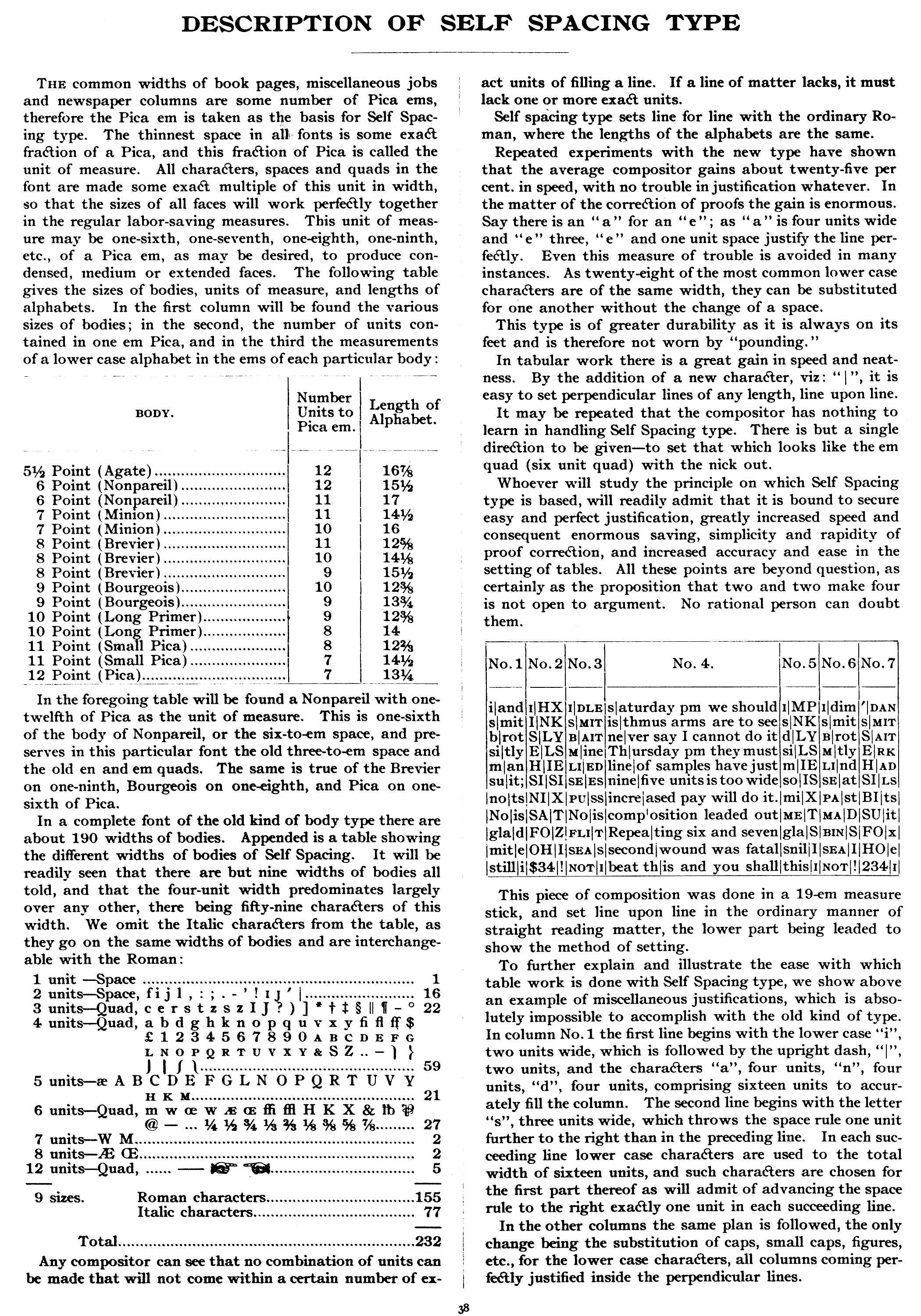
Do you mind if I insert (AND UNITIZING) and see if it meets with your approval. I am using uppercase to show it is not your words but mine. I am "not" rewriting your sentence, I am just asking if you agree with my insertion?
"But Tschichold had to adapt to both constraints -- duplexing (AND UNITIZING) for Lino, unitizing for Mono. So he made the choice to make the two 'a's fit the 9 units (which yields a noticeably wide roman 'a') instead of cramping the italic in the 8-unit slot."
Unless systems in Europe were not equal to America? I refer you to Mike Parker
> If Sabon had been designed solely for Monotype, the roman 'a' could have been put on 8 units
My problem with that is I think the cramping of the 8-unit Italic "a" is so slight that making the Roman "a" so much better would have made more sense.
> If Sabon had been designed solely for Monotype, the roman 'a' could have been put on 8 units, which would have given a more traditionally Garamondesque proportion; while the italic 'a' could have been placed on 9 units, so as not to be too narrow.
Conversely, if Sabon had been designed solely for Linotype (with no Monotype issues), the two "a"s would have been duplexed, but to a more satisfying compromise width.
BTW, I assume Sabon was optically graded. What size is that digital Sabon based on? I ask because the width decision on the "a" (9 versus 8) would have depended on the target point size.
I am not so sure about that. First we must understand the meaning of this.
Mike Parkers words.
"The idea was to replace linotype operators with faster tape drives. In order to justify lines predictably, each character had to have a predictable width. Fairchild established a standard width for each character expressed in a single fixed set of eighteen units to the set width em to be used for all typefaces regardless of typeface design. The wider the column width, the larger the eighteen unit set width required."
I read this to mean: Unlike Monotype where the units were based on the em of the type, The units in Linotype were simple a fixed formulae giving truth to predictability of column width regardless of type design. In otherwords the column width is more important than the type width. In any event, it appears to be quite cumbersome. And I predict your solution would not be quite that simple.
Those are the issues I am addressing. Actually I think my comments still applies. So it can follow both of your last two posts.
>Do you mind if I insert (AND UNITIZING) and see if it meets with your approval.
Actually, I do not agree, in this instance. I think you are misinterpreting Mike's reference to TTS. The development of TTS machines led to the introduction of unitizing systems within the Linotype line, but these units were not subsequently applied to all projects. TTS was used only (or at least predominantly) in the transmission and setting of newspaper copy. TTS units would only have been used on faces intended for newspaper composition.
This is my understanding, but you might double-check with Mike. I don't have his new number since he moved.
Now, news faces were the large bulk of Linotype's bread and butter in the late 1950s and 1960s, as newspaper comp was the last bastion of Lino's market. (Mike has said that Jackson Burke lamented that most of his tenure at the head of the MLCo. type department was spent forever revising faces for ever-narrowing newspaper columns.)
But it was not the entirety of Lino's type output. Sabon would have been targeted toward the book composition market, and those houses would not have had TTS machines nor any need to conform to TTS standards. So I do not think it is reasonable to assume that Sabon needed to be designed to any unitized system on account of Linotype composition.
Sabon would have been developed while Mike was at the helm of the American MLCo. type dept., I believe. The face was cut by Stempel (who were essentially German Linotype), but Mike might have some direct recollections. You could ask him.
Hrant --
I do not know which size this digital Sabon (Adobe's BTW) would have been based upon. I would presume the 12 point, based on what I know of the general transition of designs from metal to photo to digital. But I can only assume.
You may be right and the decision about which unit width to assign the 'a' to could have varied by size -- wider for the smaller sizes, narrower for display. On the other hand, I doubt that Tschichold would have made a different decision. Just a practical matter. Text would have been set primarily by machine comp; display would usually have been set by hand, I imagine. So all of the Lino and Mono sizes would probably all have the same wide 'a'. I suppose that the foundry display sizes could have been cut without these restrictions, but I don't know. I don't have information about what sizes were released in each medium.
> we can measure this parameter too
What I'm doing for the ATF Garamond is measuring the three lc zones separately, and I'll graph those stacked, to clearly show the changes in proportion. So you should be able to see if/how_much the size-on-body changes, as well as things like how the baseline moves.
> These ... do describe linear relationships.
In fact the slopes (7.6875 and 9.5 versus 8.5) can be very useful.